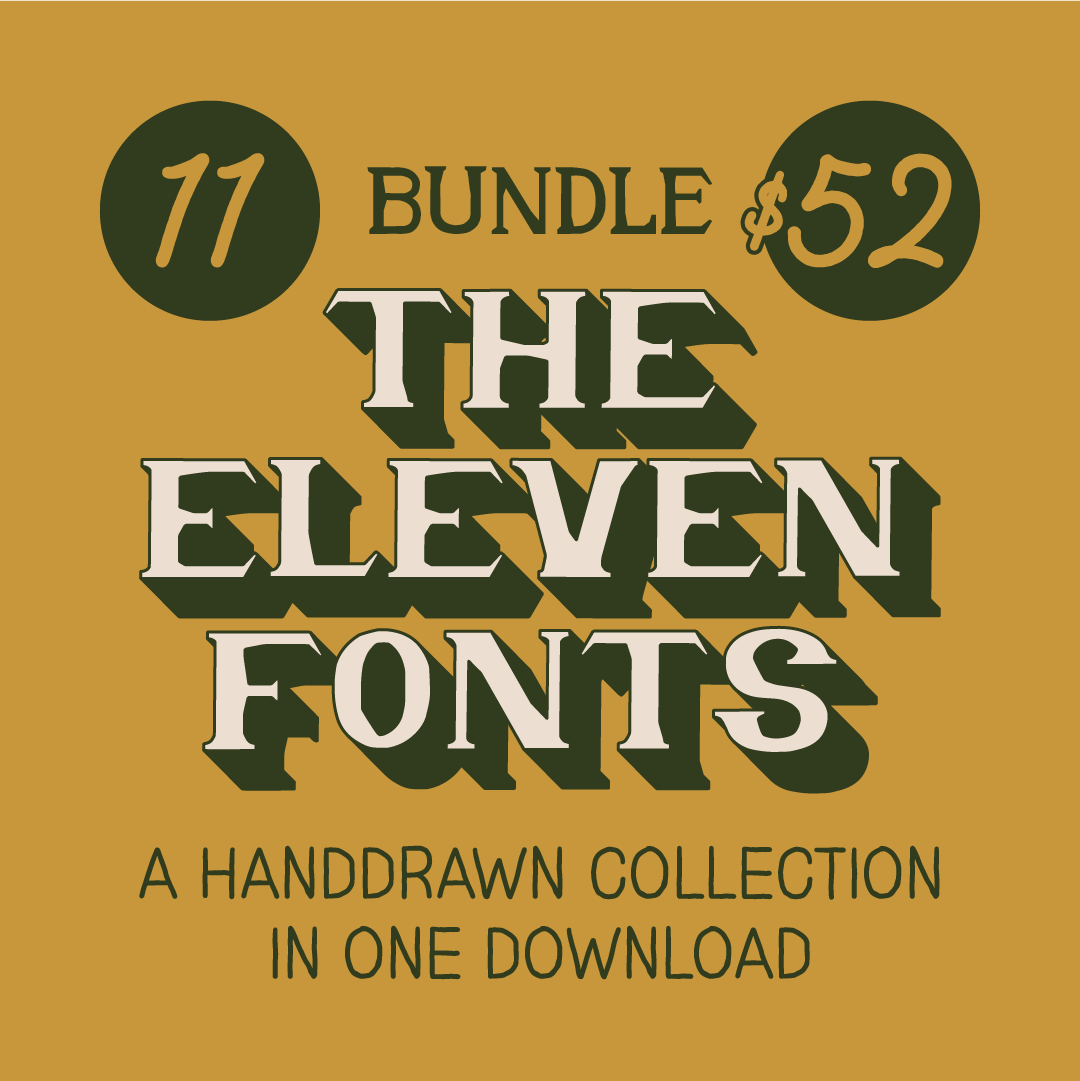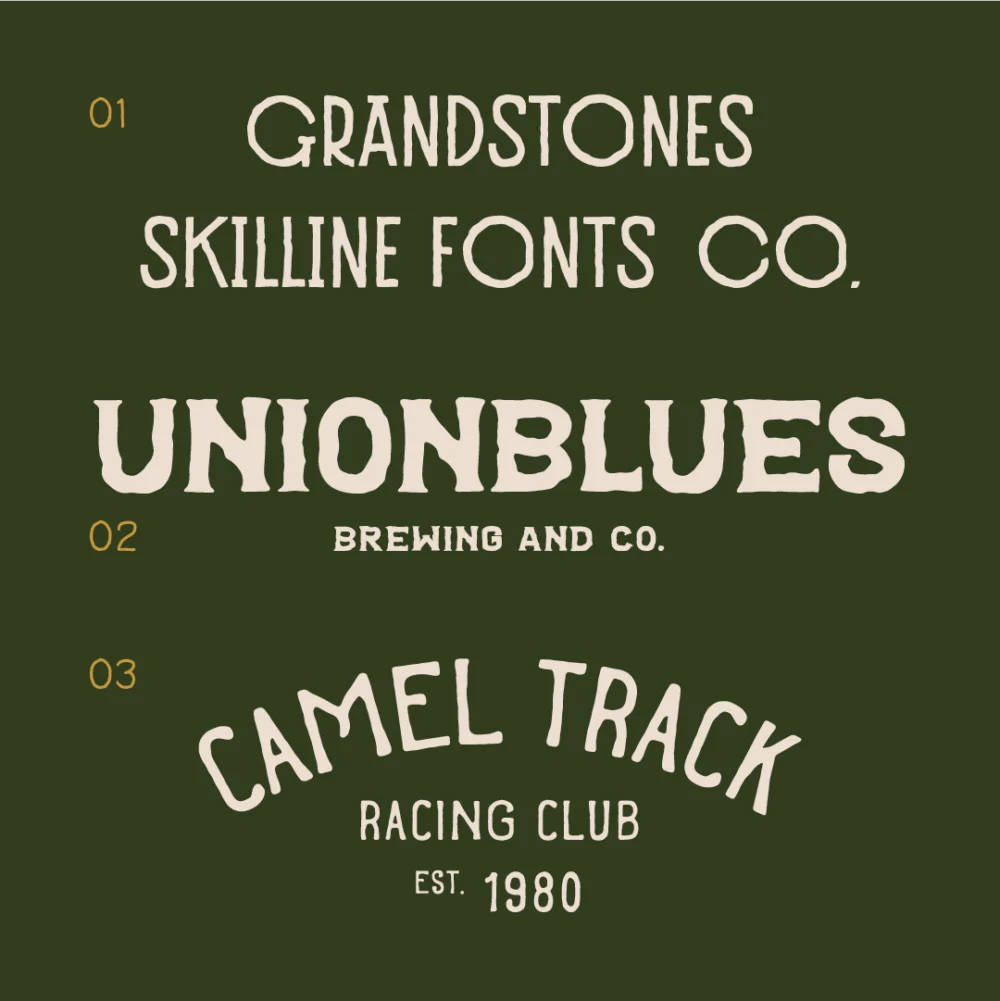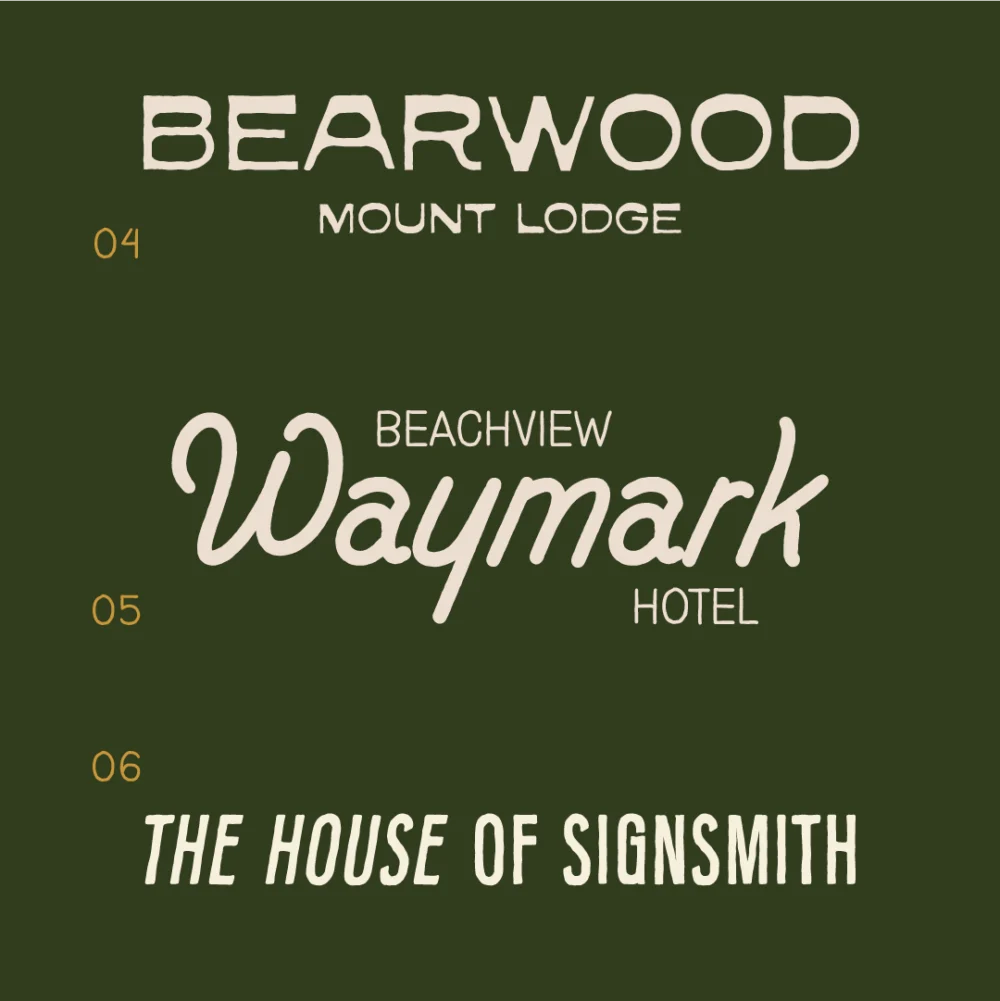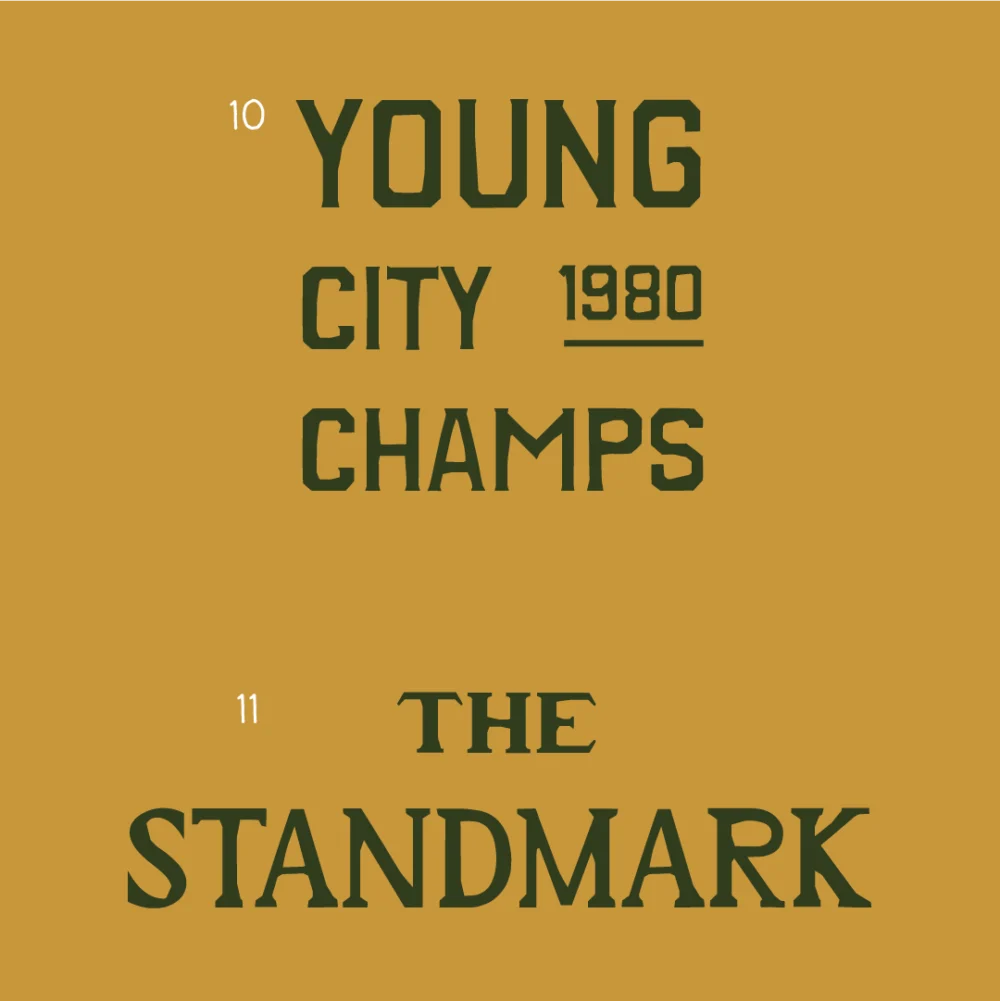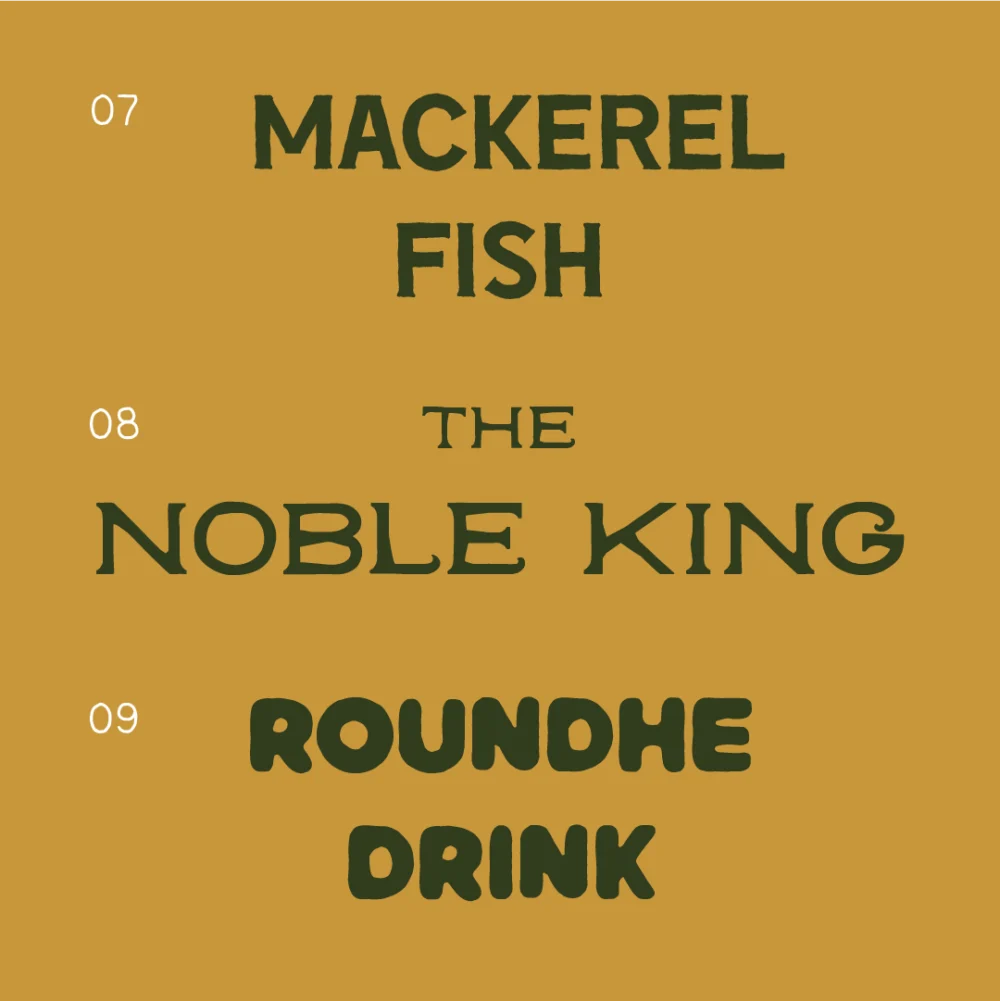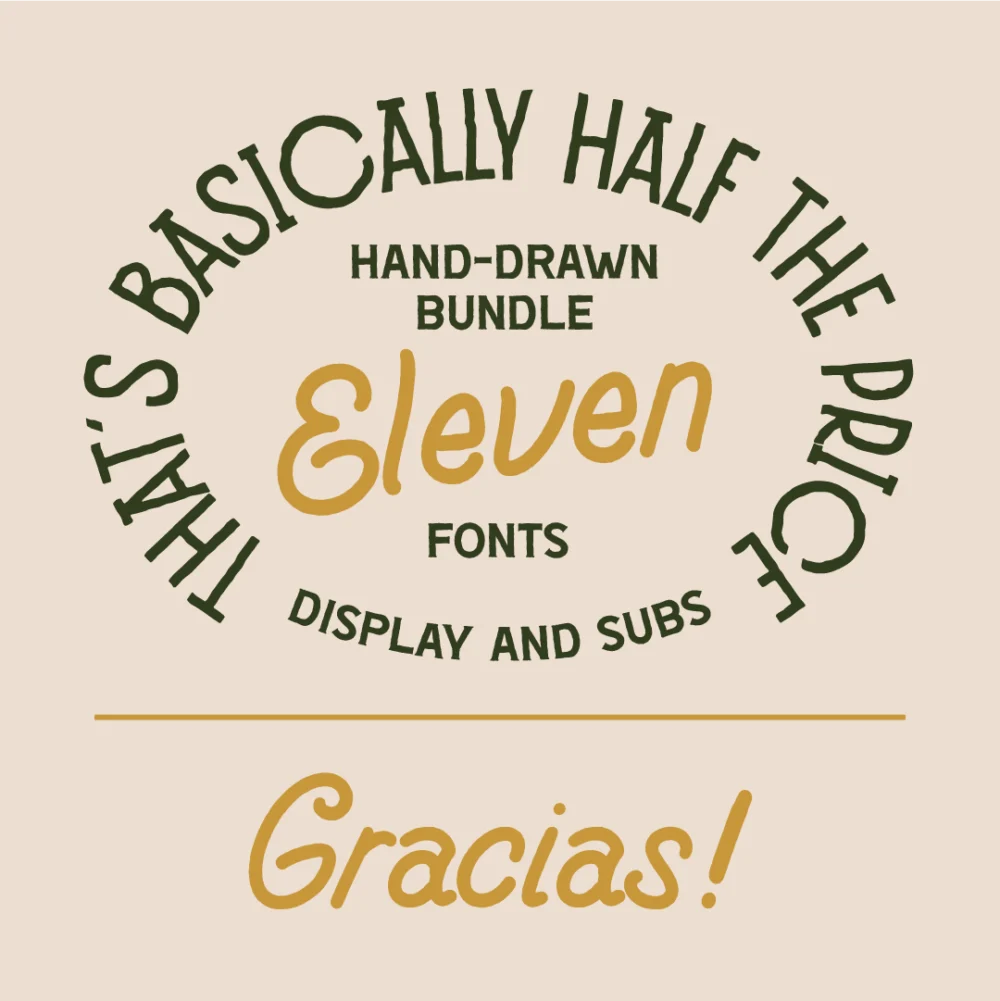
The Eleven Fonts Bundle is a curated vintage handdrawn typeface collection by Skilline Fonts Co., featuring 11 distinctive fonts in one powerful download. This bundle combines sans serif, script, display, and handdrawn styles crafted for retro branding, signage, editorial headlines, packaging, and bold vintage design.
From classic signage-inspired lettering to soft rounded display and expressive scripts, each font delivers personality, warmth, and timeless character. Perfect for designers who want versatility, vintage mood, and strong branding impact in one complete typography pack.